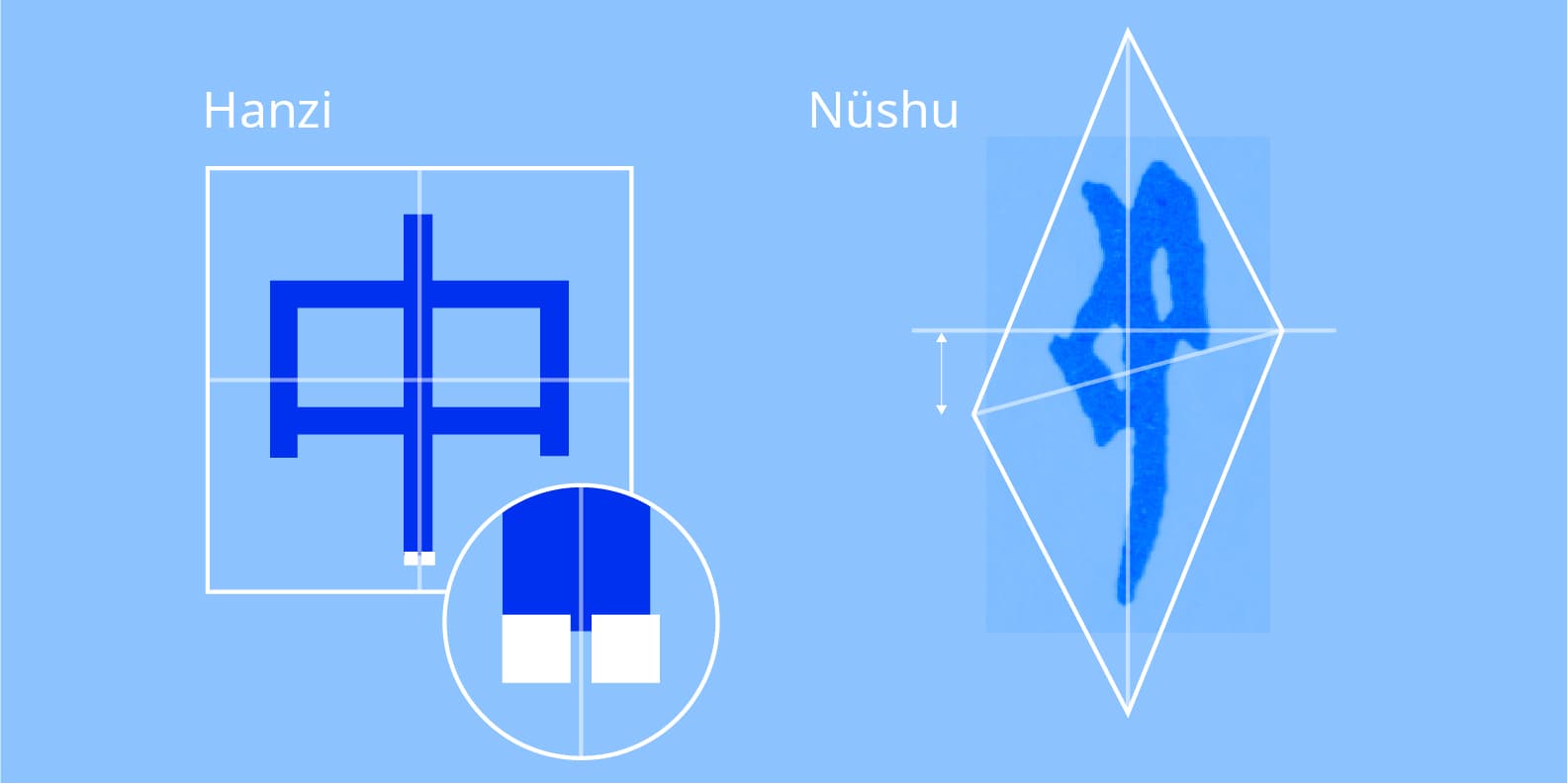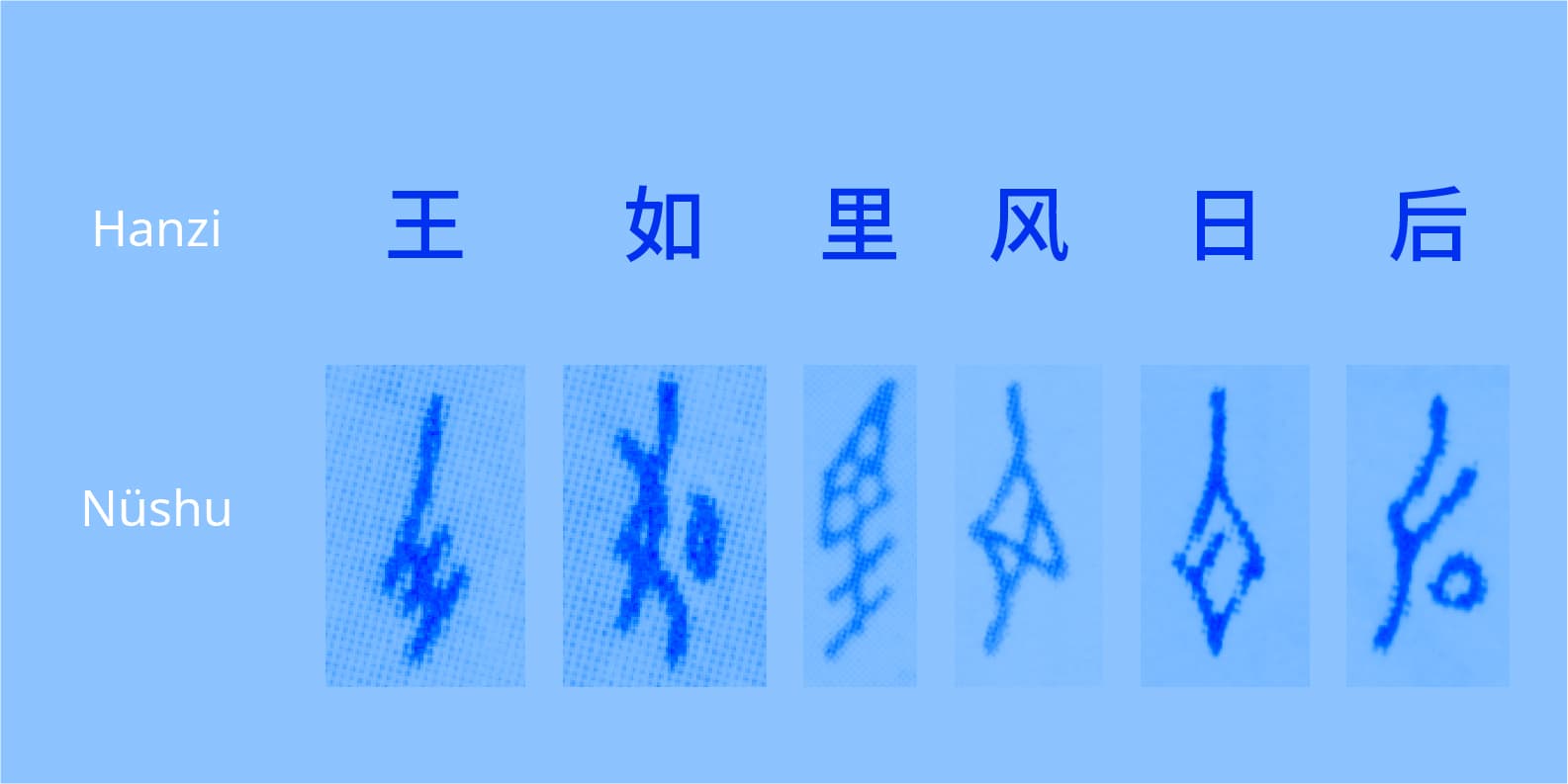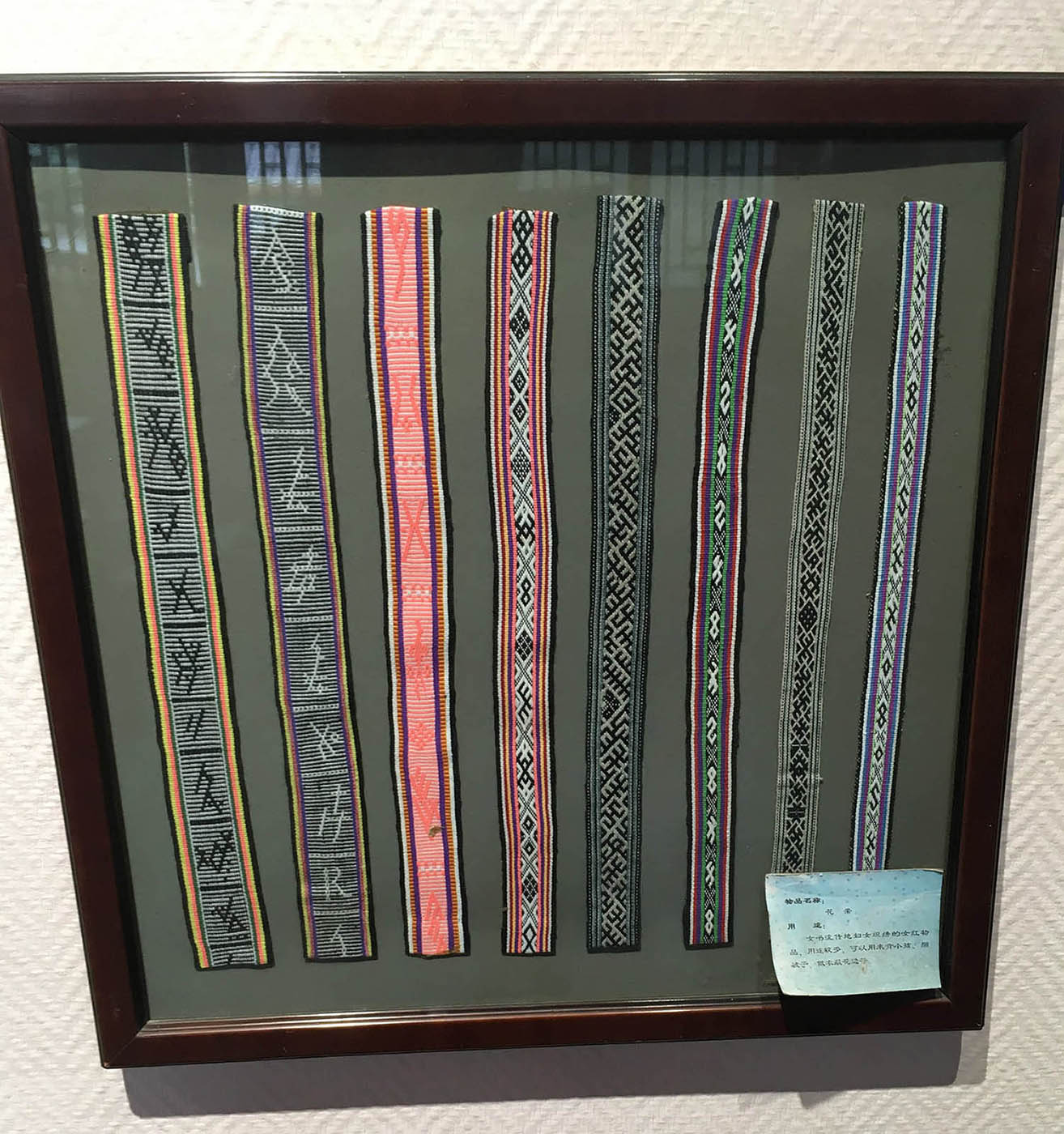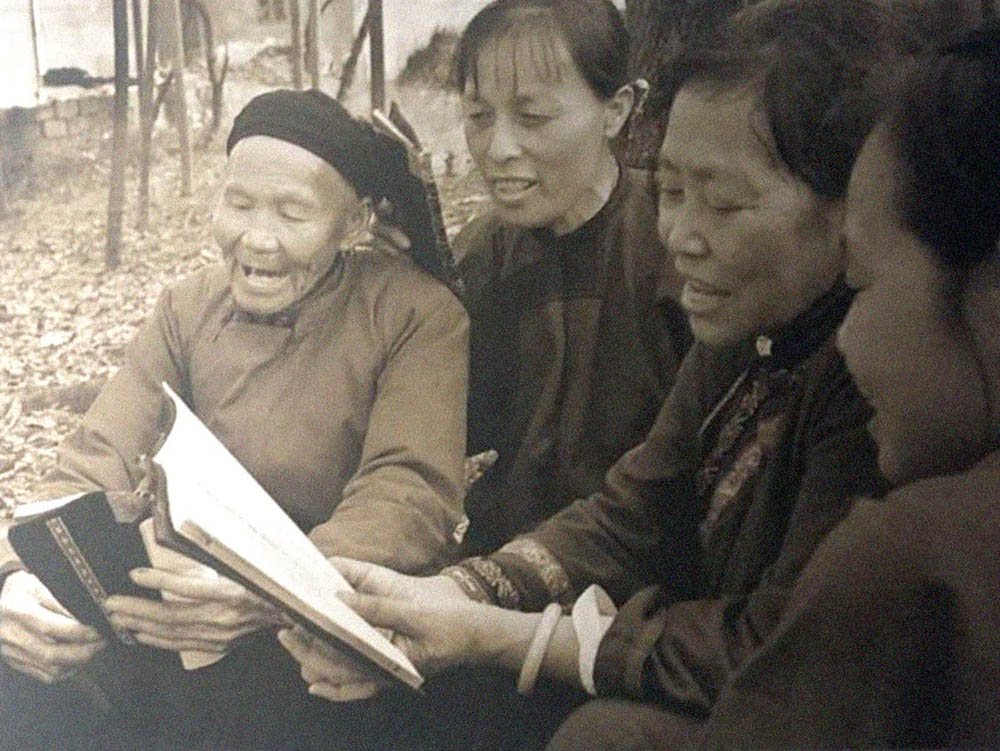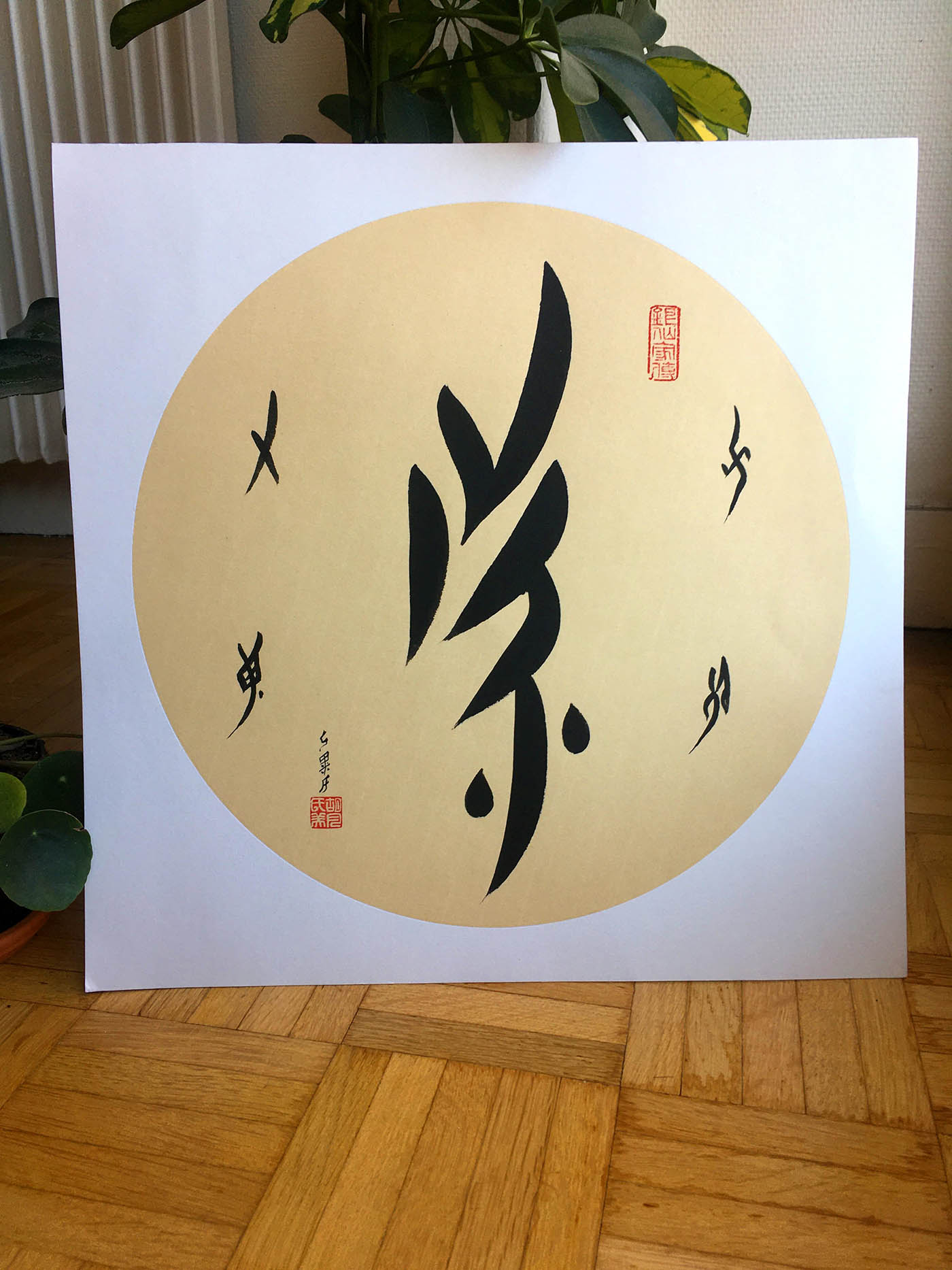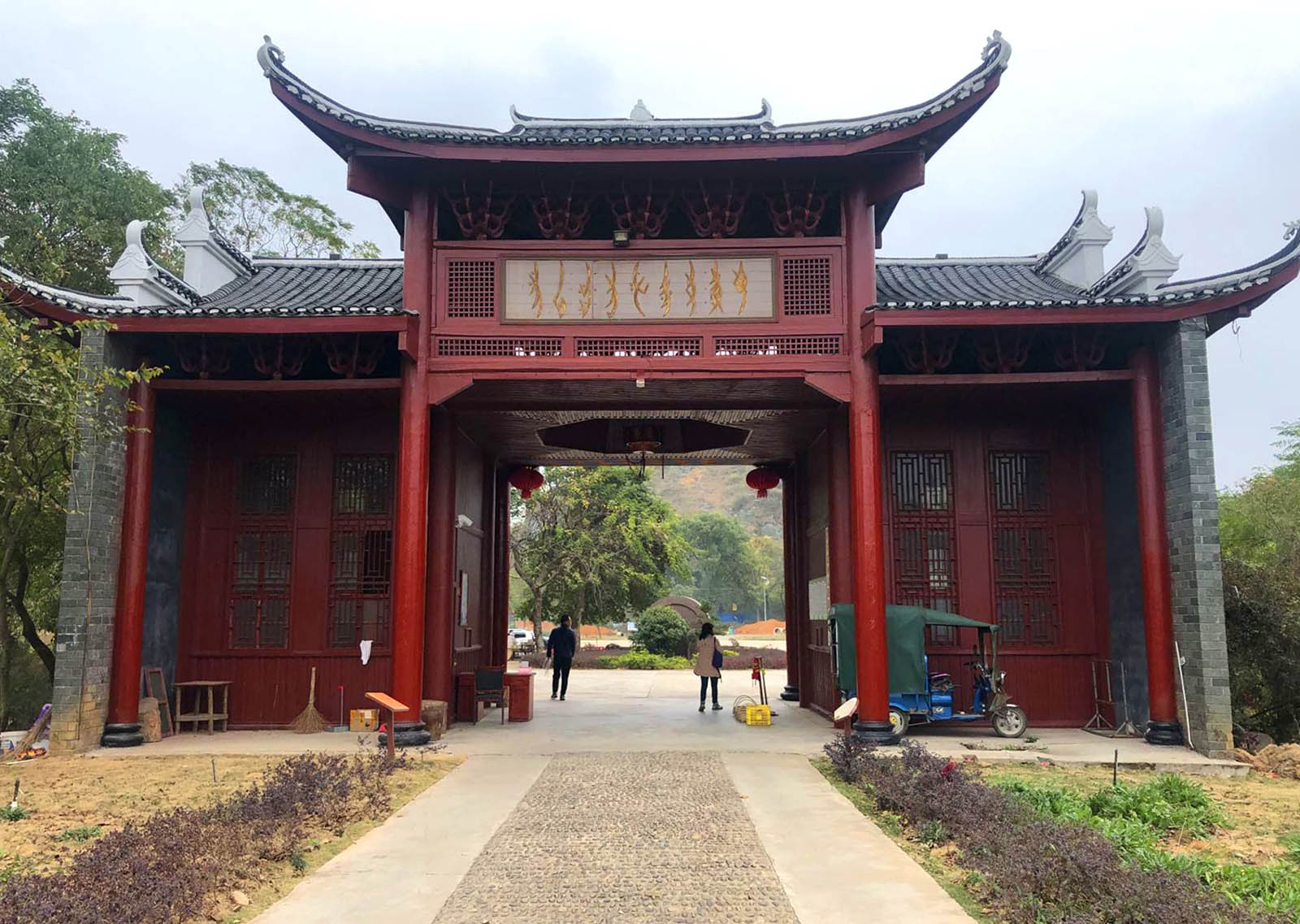
with Noto Sans Regular in Latin, Chinese and Nüshu
一岁女,手上珠 (One year girl, hands with pearl) by Gao Yinxian 高银仙 (1902–1990)
Note: To avoid any confusion in word meaning, I will use the following contractions: Chinese as Chinese spoken language. Hanzi as Chinese written characters (汉字). Nüshu as Nüshu script. Nüshu script as it is sounds redundant, as Nü (where the ü is pronounced like a French [u]) means ‘woman’ (女), and shū (书 – meaning more commonly ‘book’ but also ‘script’) stands for script already. Tuhua as local dialects (explanations further below).
Introduction
In these modern times, literacy is something that we take for granted, and for (almost) everyone across the globe. All throughout human history, writing systems play an essential role to its evolution. The knowledge of writing and reading is something that we imagine accessible to all in a utopic world, with no barriers, bringing societies further and better… But obviously and unfortunately, it hasn’t been this way. There must have been solutions through the ages, around the world, created and developed out of a practical need, but very few of them become general knowledge, reach our times, or are in the spotlight.
Until very recently though, this happened to one of them, at its almost-extinct moment: the Nüshu writing system. It is a one-of-a kind example of a solution brought to life by self-educated people when academic education was not allowed to them because of both social and gender separation. This script’s existence demonstrates a solution to bypass a barrier with peace, and transform it into a way to elevate the users on their own with no foreign help or influence.
01. What and Where
Nüshu is the only writing system developed and used exclusively by women in the history in the world (as we know it so far… no one knows what is still waiting to be discovered…) in the South-East region of Hunan (湖南省) in China.
Here is the description of Nüshu, as part of the 12.0 update of the Unicode Standard: “Nüshu is a siniform* script devised by and for women to write the local Chinese dialect of South Eastern Hunan province, China. Nüshu is based on Chinese Han characters. Unlike Chinese, the characters typically denote the phonetic value of syllables. Less often Nüshu characters are used as ideographs. Although very few fluent Nüshu users were alive in the late twentieth century, the script has drawn national and international attention, leading to the study and preservation of the script.” (The Unicode Standard, version 12.0 – Core Specification – Chapter 18, East Asia, p.742, March 2019)
*siniform: writing system that is based on or influenced by Chinese writing system.
This unique writing system lives in the remote areas of the province of Hunan, more precisely within the district of Jiangyong (江永县). The closest large city is Guilin (桂林), famous for its particularly high mountains specific to the region. Jiangyong county spreads on about 1600 km², which is a bit larger than the Greater London (1500 km²) but with a much smaller population (about 240,000 in 2015) with two main ethnic groups: Han and Yao. 1
Even nowadays the district of Jiangyong is still isolated from the rest of the country, hard to reach, with regional trains, few train stations, and very reduced taxi service… as most of the people moving around there are locals.)
One of the many villages in the region, Shang Gan Tang 上甘棠,with over 1100 years of history.
Nüshu is the phonetic transcription of 女书 in Chinese, which literally means ‘woman’ for 女 and ‘script’ or ‘writing’ for 书 (although it means ‘book’ more often). Just like when we speak of Lishu (隶书) for Clerical script, Kaishu (楷书) for Regular script or Caoshu (草书) for Cursive script.
Lishu sample on Cao Quan Stele 曹全碑, from the Beilin Museum collection in Xi’an (碑林, 西安)
Kaishu sample, calligraphy by Yan Zhenqing 颜真卿 (709–784)
Caoshu sample, calligraphy by Wang Xianzhi 王献之 (344–386)
These examples show different calligraphic styles of a same script: Hanzi. Nüshu is a different script, strongly related to Chinese and to Hanzi.
Nüshu is also called “Mosquito legs script” (蚊脚字) by the locals, while Nüshu is a denomination given to the script by academics.
Nüshu is not to be put in the same basket as the other calligraphy scripts, as it is not the visual transcription of Chinese language (so to speak), but one of the many local dialects in the area shown on the map above. The ‘s’ stands for the various dialects put together, called Tuhua by the locals (土话, literally ‘land language’), spoken by the inhabitants (both women and men) of many villages, towns and cities in Jiangyong county.
02. When
Even until now, it is hard to determine with certainty a date of origins for Nüshu, as there are very few old documents with this script or traces of its beginnings remaining (see in Chapter 06. How is it used to know why). But, it is said by most (serious) research that Nüshu finds its origins around the 9th century, during the beginning of Song dynasty (960–1279) from the oldest still existing documents or more recent ones mentioning Nüshu. Most of the documents and artifacts with Nüshu are dated from Ming (1368–1644) and Qing (1644–1911) dynasties, kept in Hunan Museum in Changsha. Bronze coins dated from Taiping Heavenly Kingdom (太平天国) era (1851–1864) were discovered in 1993 in Nanjing (much further North to Jiangyong) with Nüshu characters on one side saying “women under the sky, sisters of one family” (天下妇女,姊妹一家). It is the oldest artifact found with Nüshu characters so far.
Bronze coin imprint with Nüshu correspondence, courtesy of Pr Zhao Liming 赵丽明